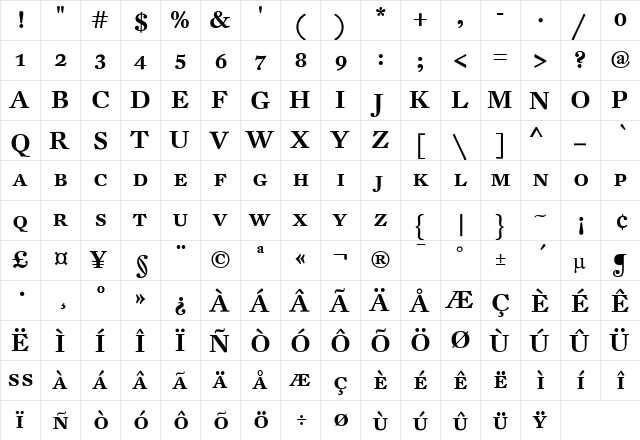
DTLFleischmannT Medium Font Preview
DTLFleischmannT Medium
Design Context for DTLFleischmannT Typeface
DTLFleischmannT offers clean, dependable letterforms without strong stylistic allegiance, making it a practical choice for designers who need flexibility.